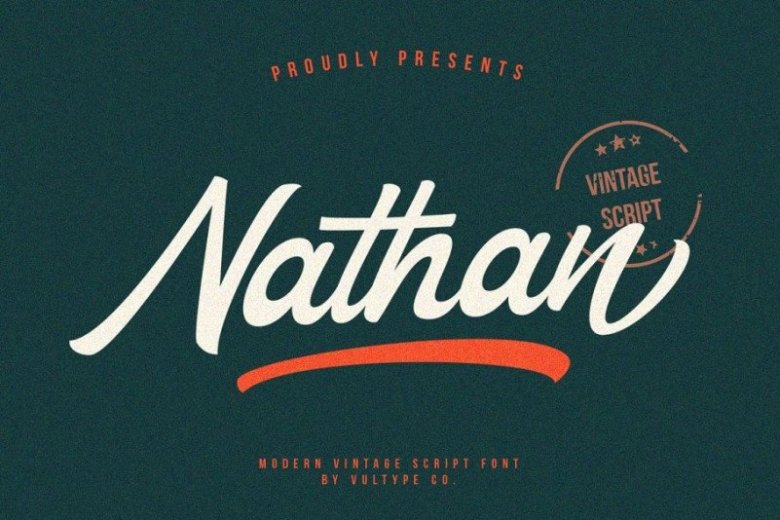
Nathan Script Font
This is a vintage script font with clean brush strokes. You can customize every word with alternates characters and swashes. Blacklisted also support special characters for multilingual. Introducing Nathan Font.
It’s was very inspired from modern vintage and retro style. With font duo that combines two trends (Modern Sans serif caps and Vintage Script) You’ll be seeing this combination a lot more in the design world. All characters have an imperfect shape that gives a natural look in design.
Nathan Script easily cooperating together and perfect for creating the traditional style logos, labels, package design, lettering for t-shirts and much others.